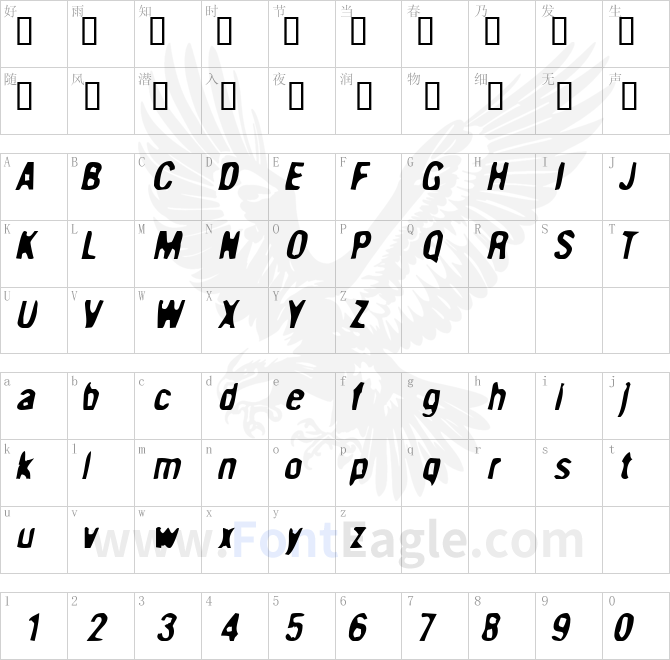
HelveticaCondensed Stressed.ttf Base Font Information
- Font name:HelveticaCondensed
- Font Subfamily:Stressed
- Font Subfamily ID:Macromedia Fontographer 4.1.4 HelveticaCondensed Stressed
- Font Full Name:HelveticaCondensed Stressed
- Font Version:Macromedia Fontographer 4.1.4 17/4/01
- Postscript:HelveticaCondensedStressed
- Font Copyright:Created by John Bloor ©1998 Smoking Drum.